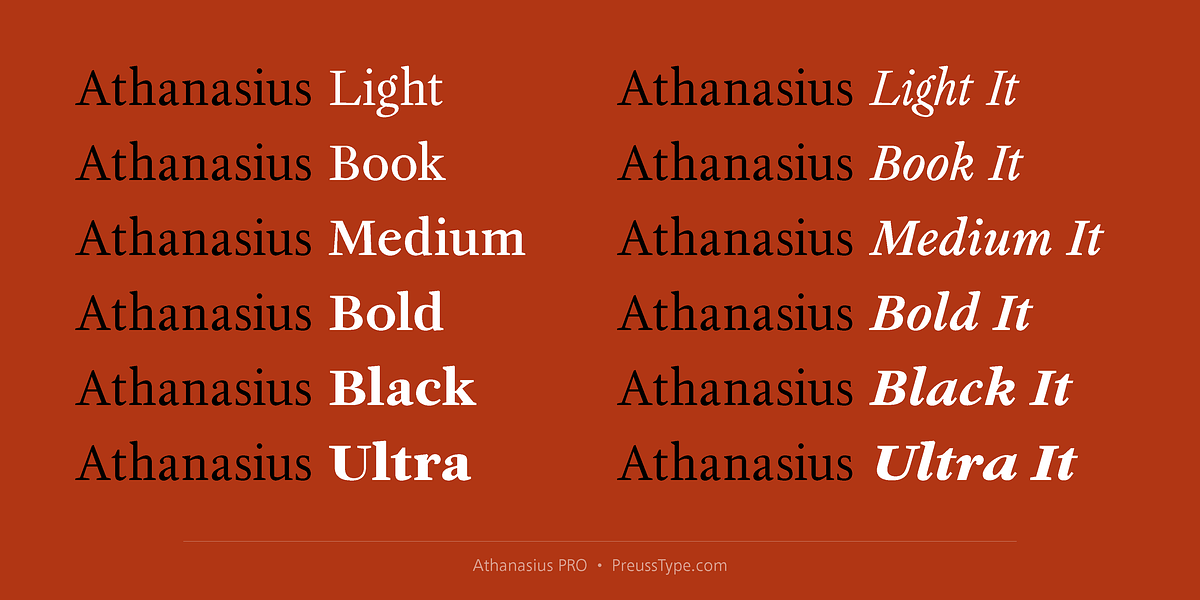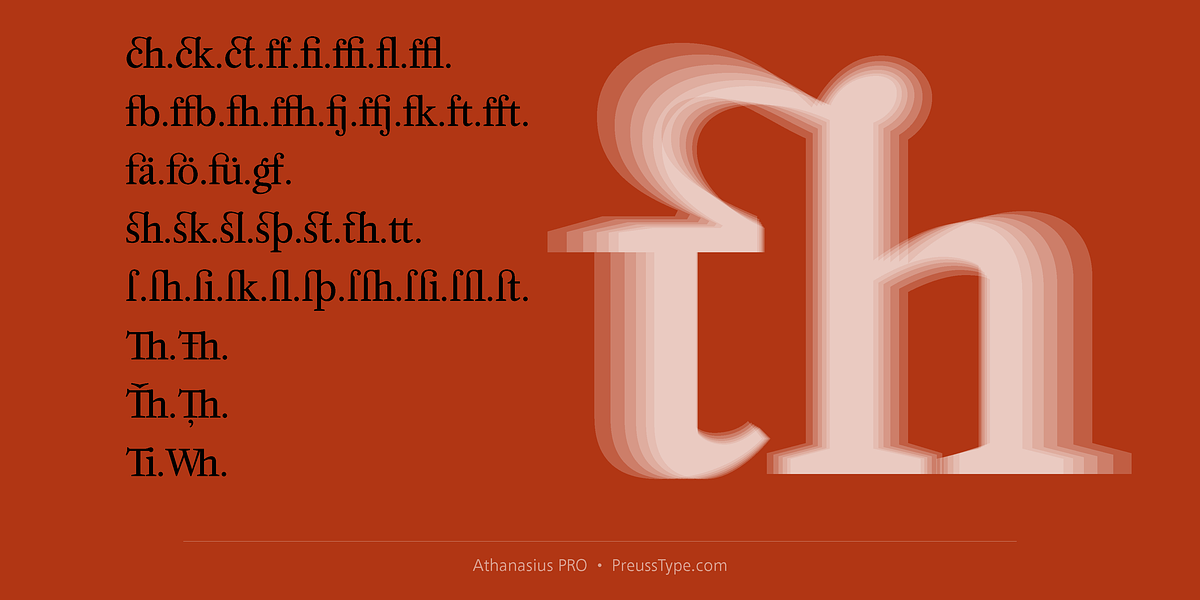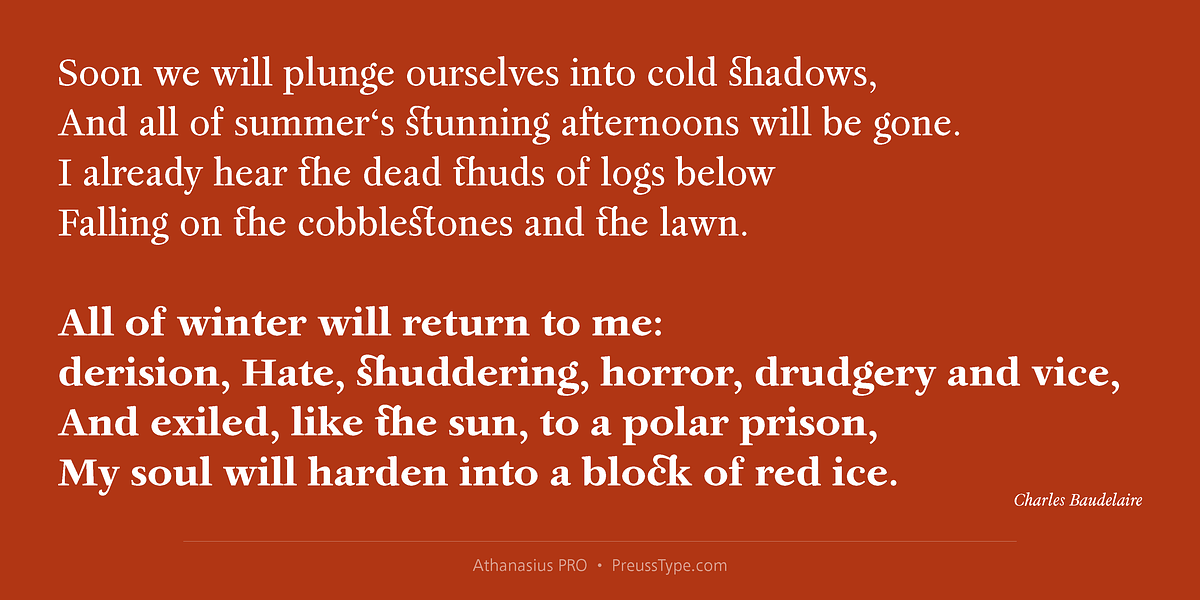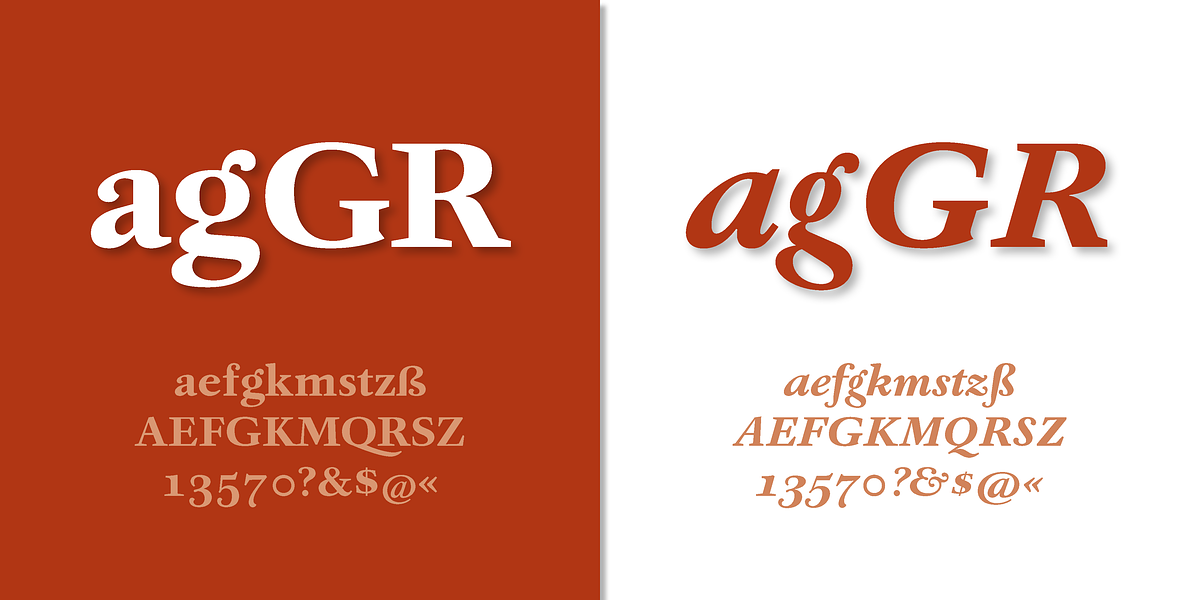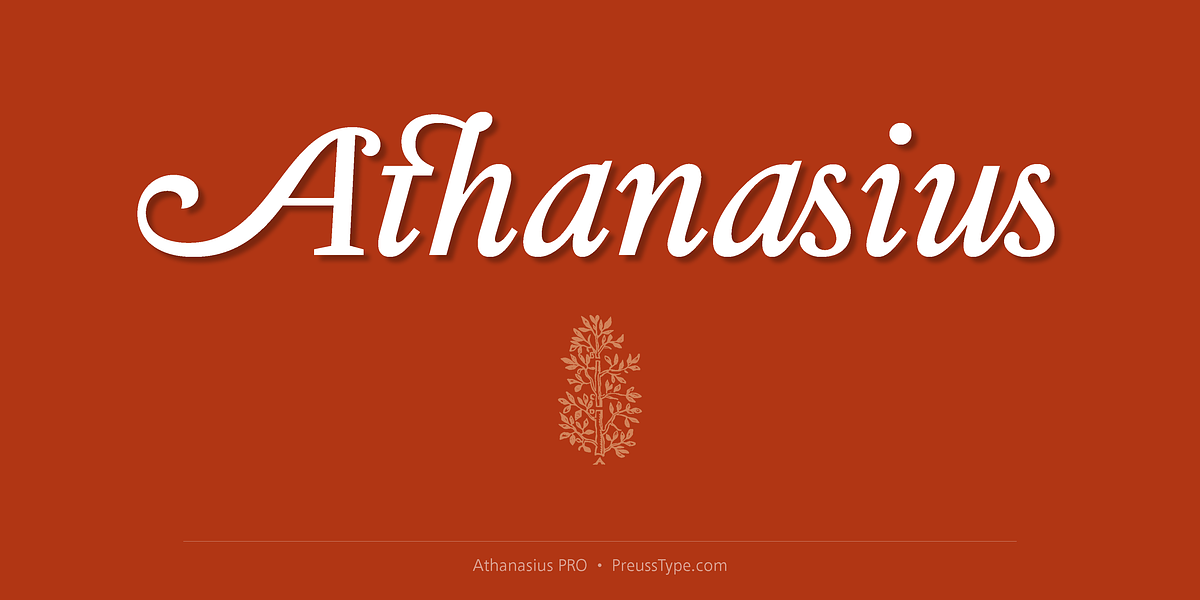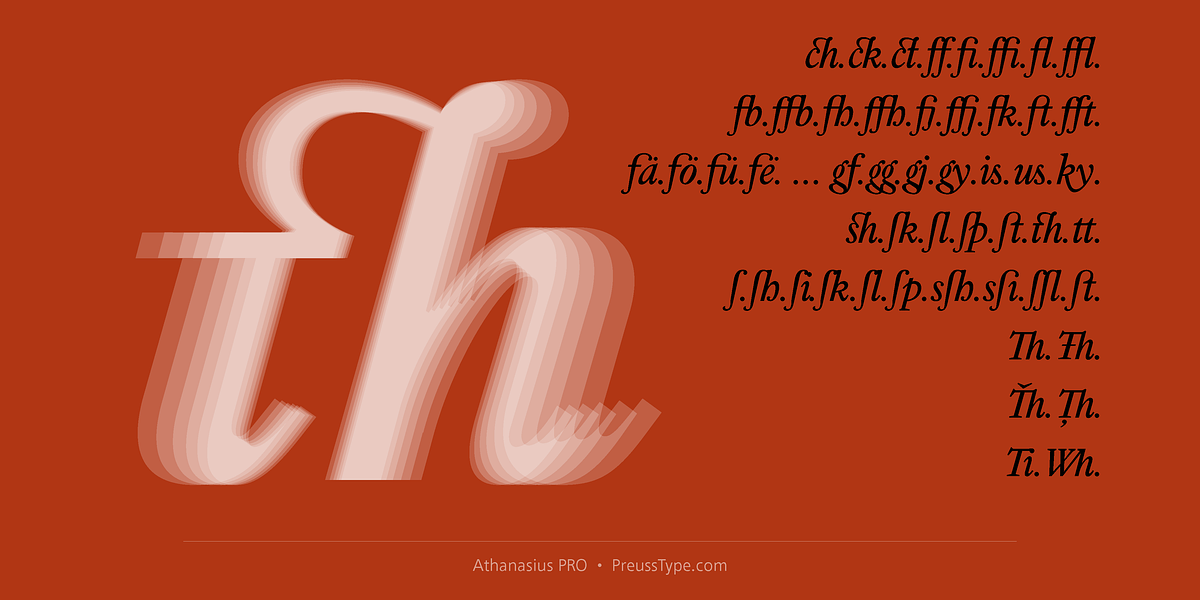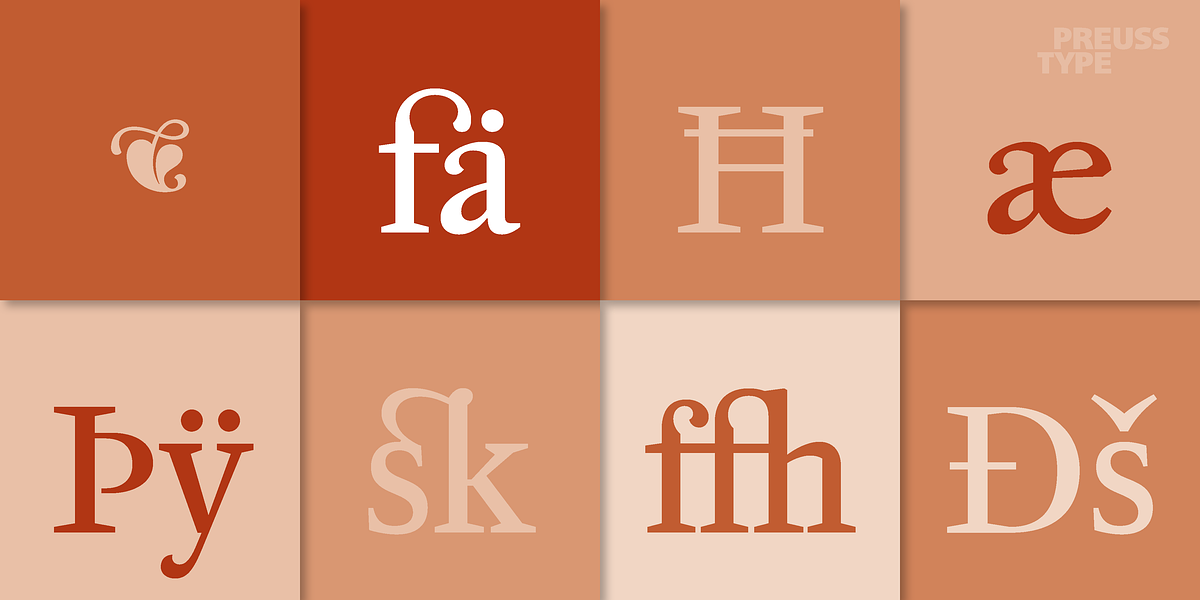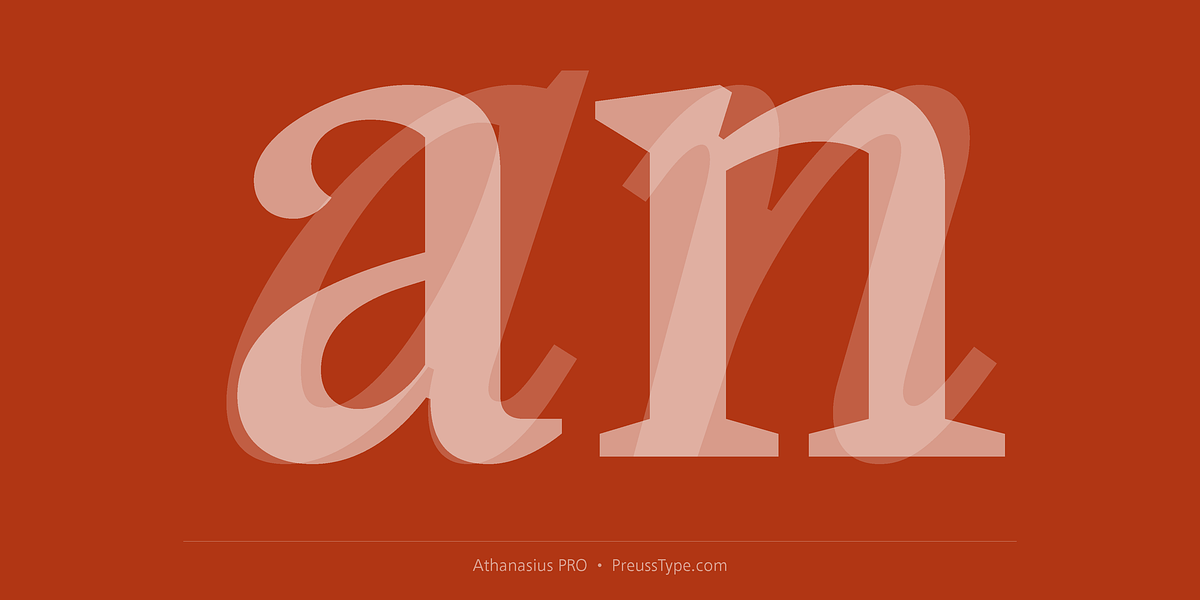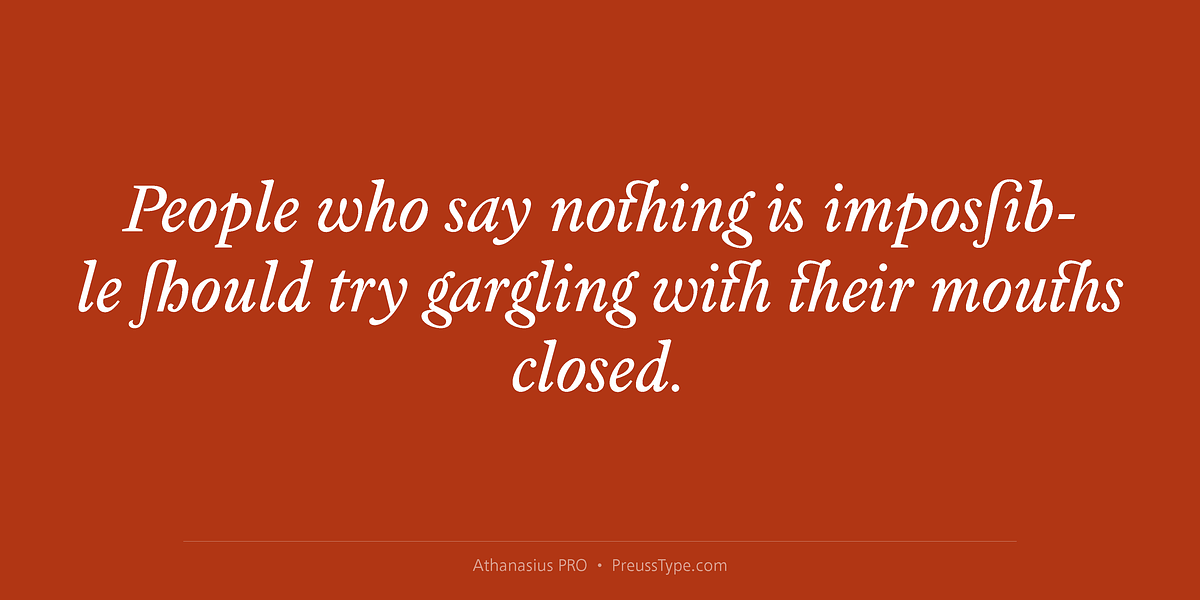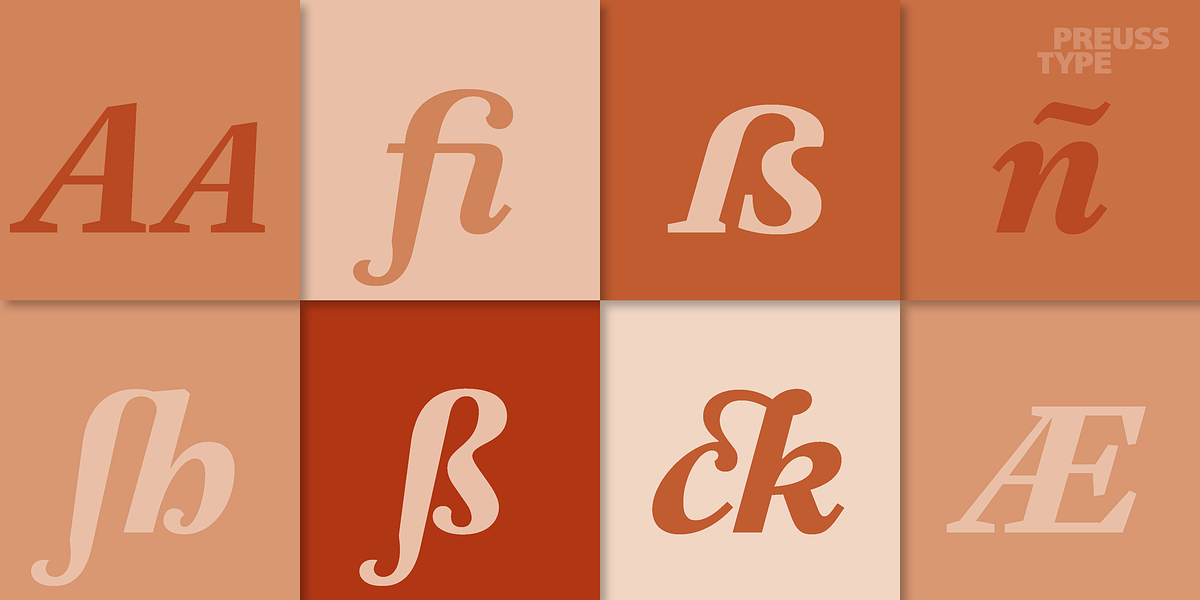
Athanasius PRO
Athanasius is a serif font designed with text setting in mind. Its creator draws inspiration from Baroque typography, aiming to infuse classic elegance into a modern typeface. The font's features suggest it offers multiple weights, italics, and potentially small caps for versatility in typesetting.